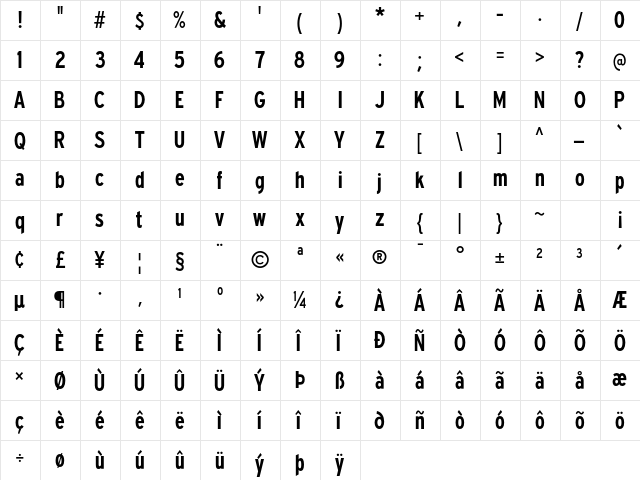
Expressway Cd Bold
Design Context for Expressway Cd Typeface
Expressway Cd is a composed and adaptable typeface that performs quietly and consistently across a wide range of design contexts. The heavy weight commands attention and anchors typographic hierarchies.